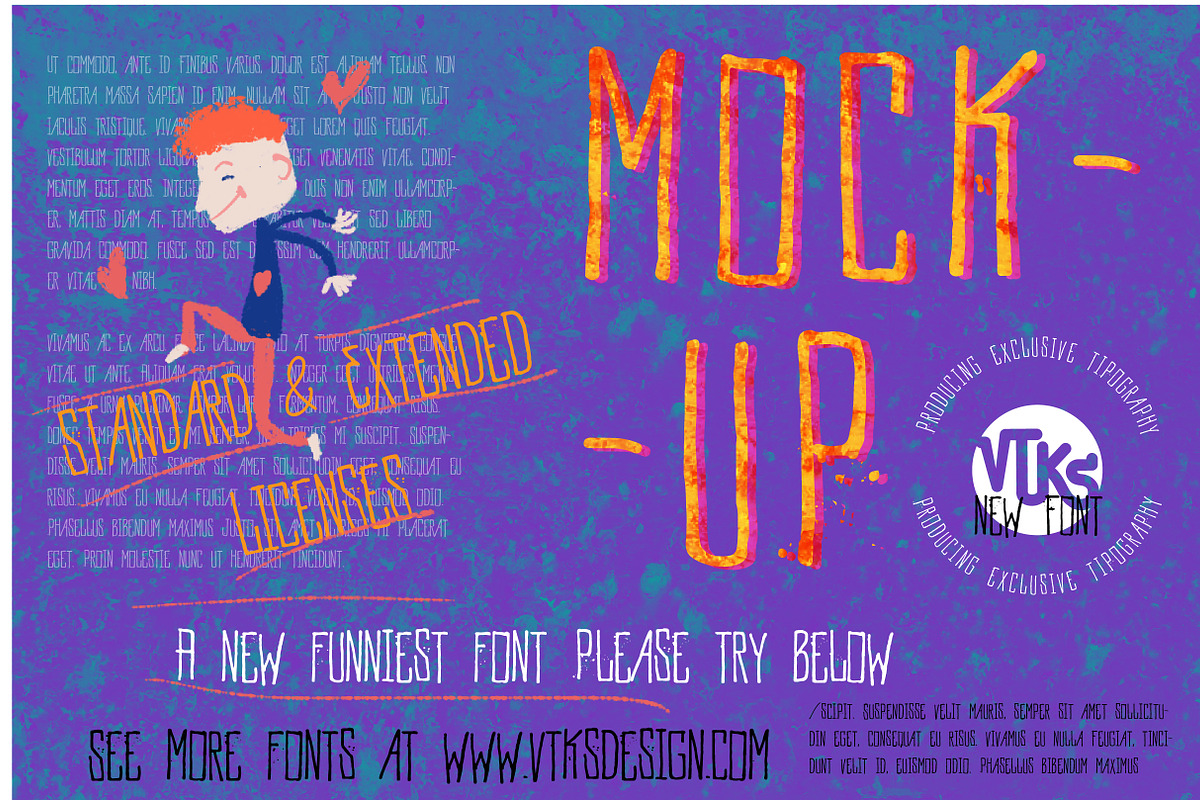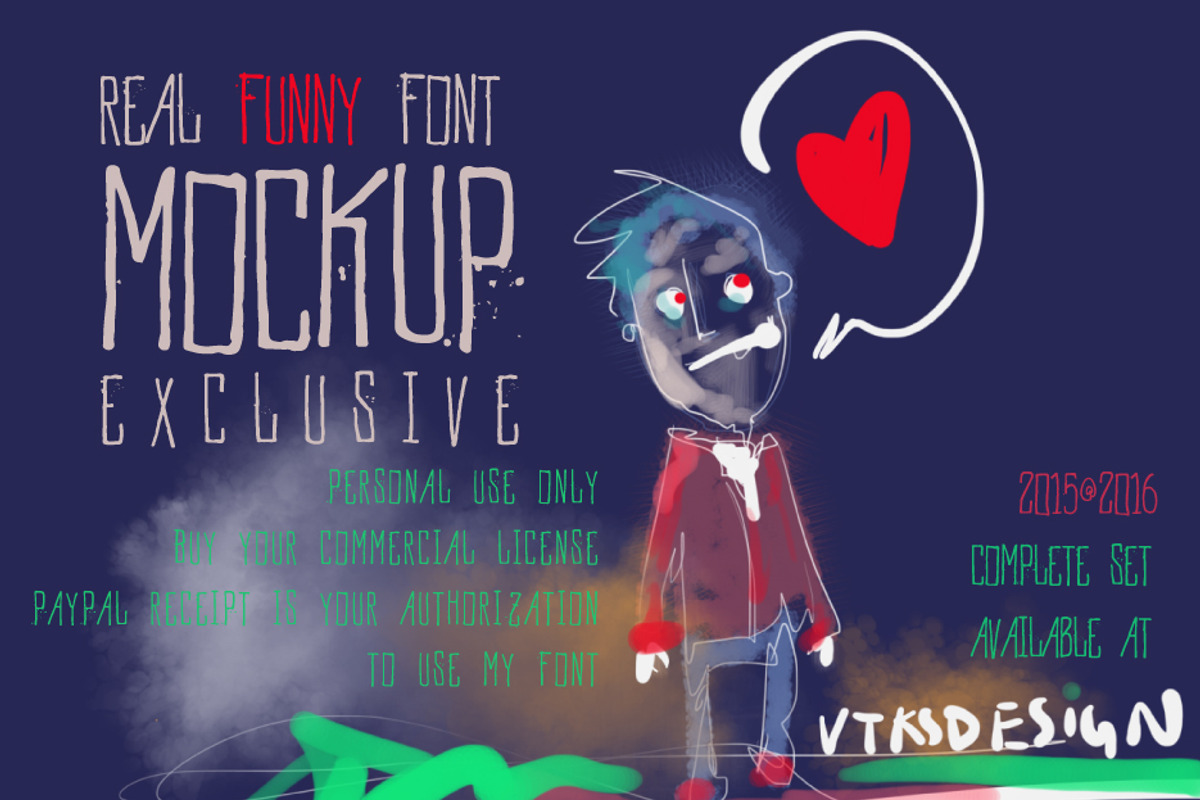
MockUp Font
MockUp Font by vtks design is a font selected for branding, posters, packaging, typography.
Why MockUp Font is worth a look
MockUp Font by vtks design fits naturally into Branding, posters, packaging, typography.